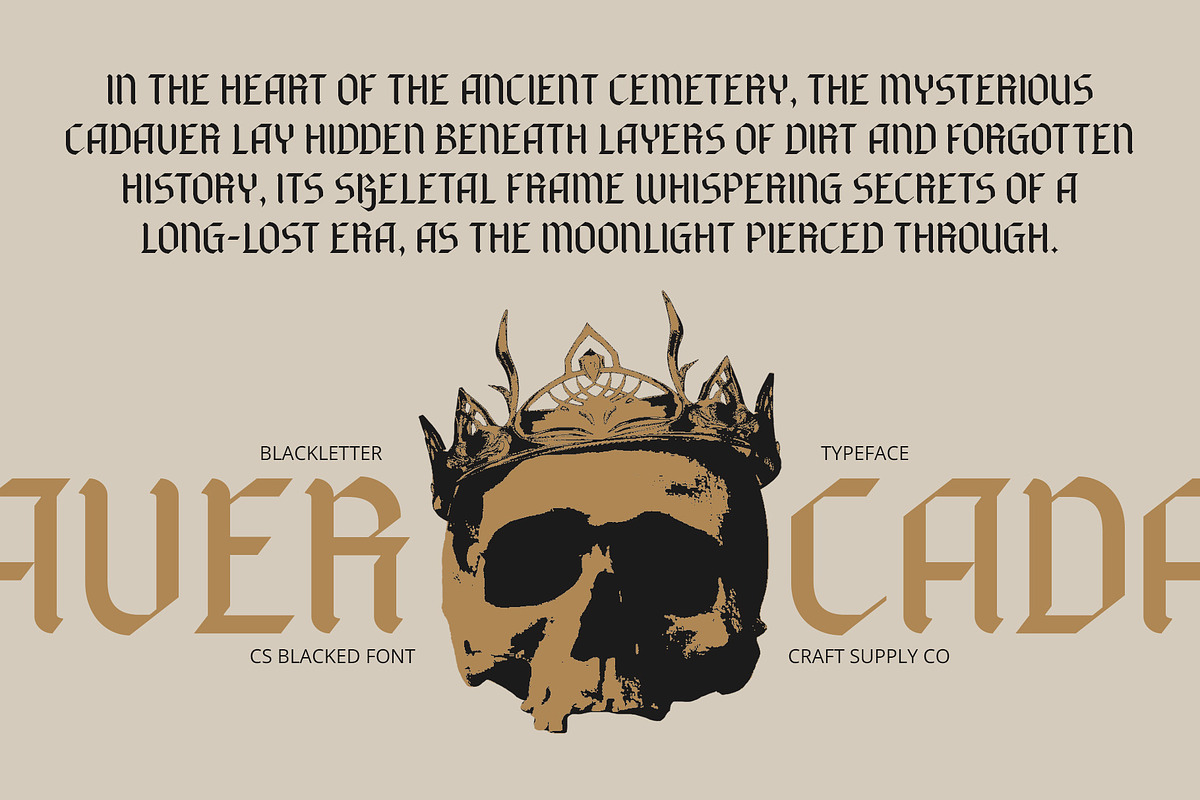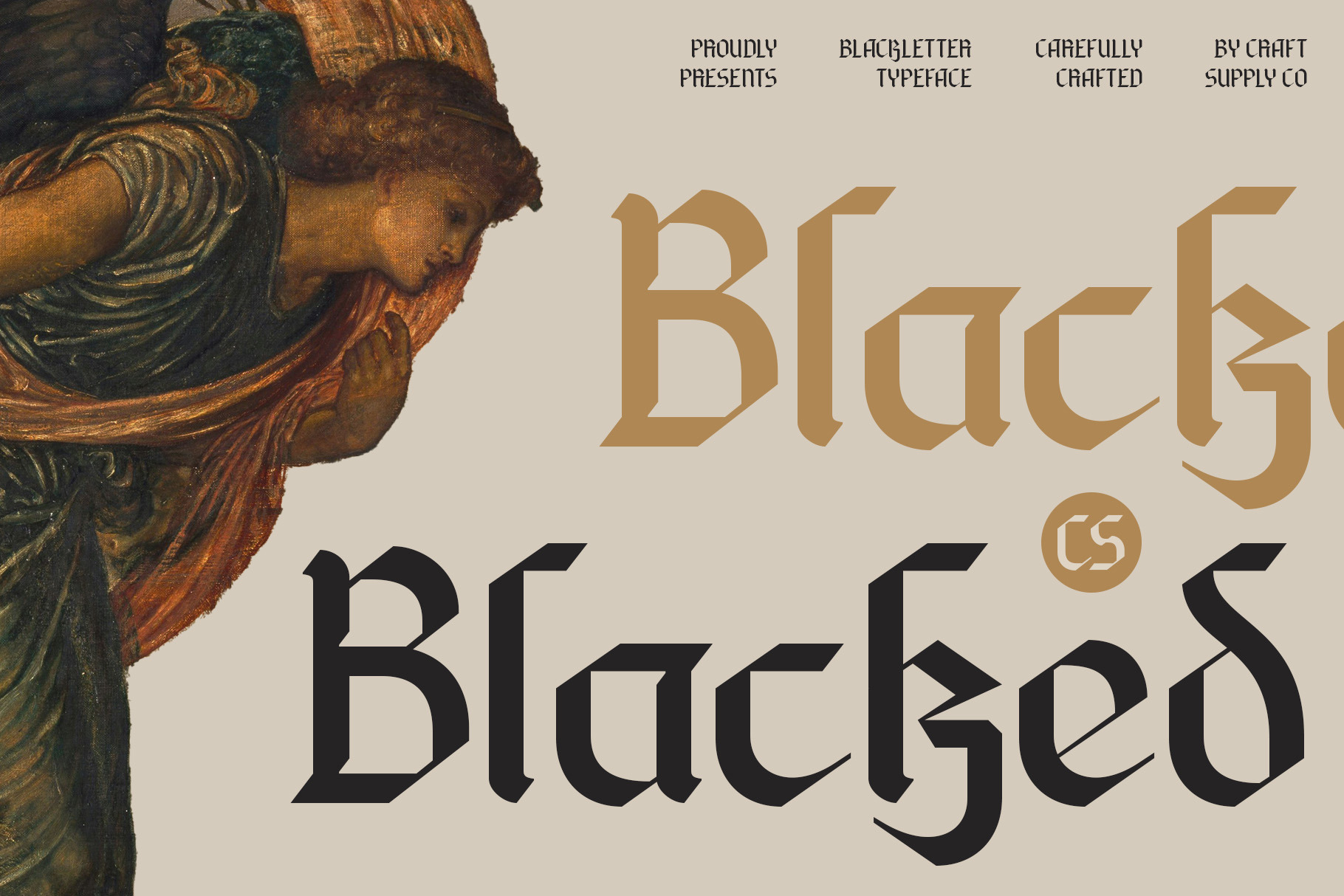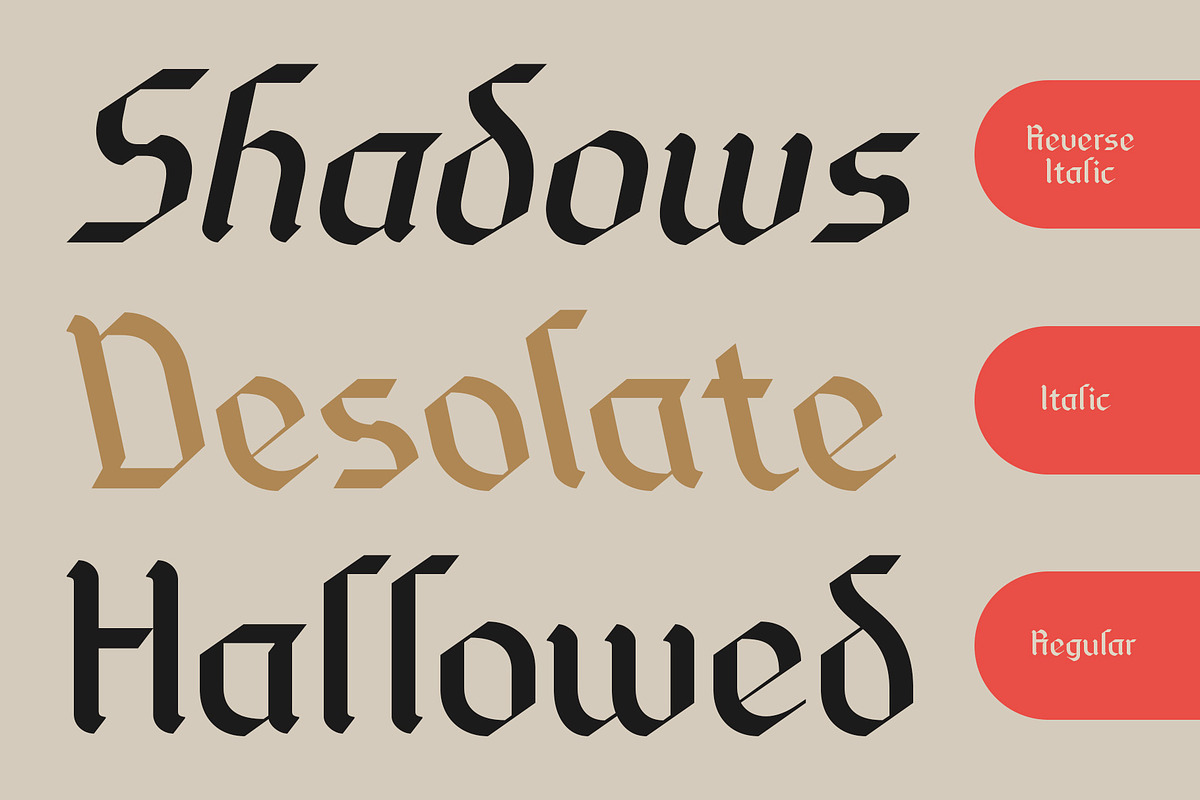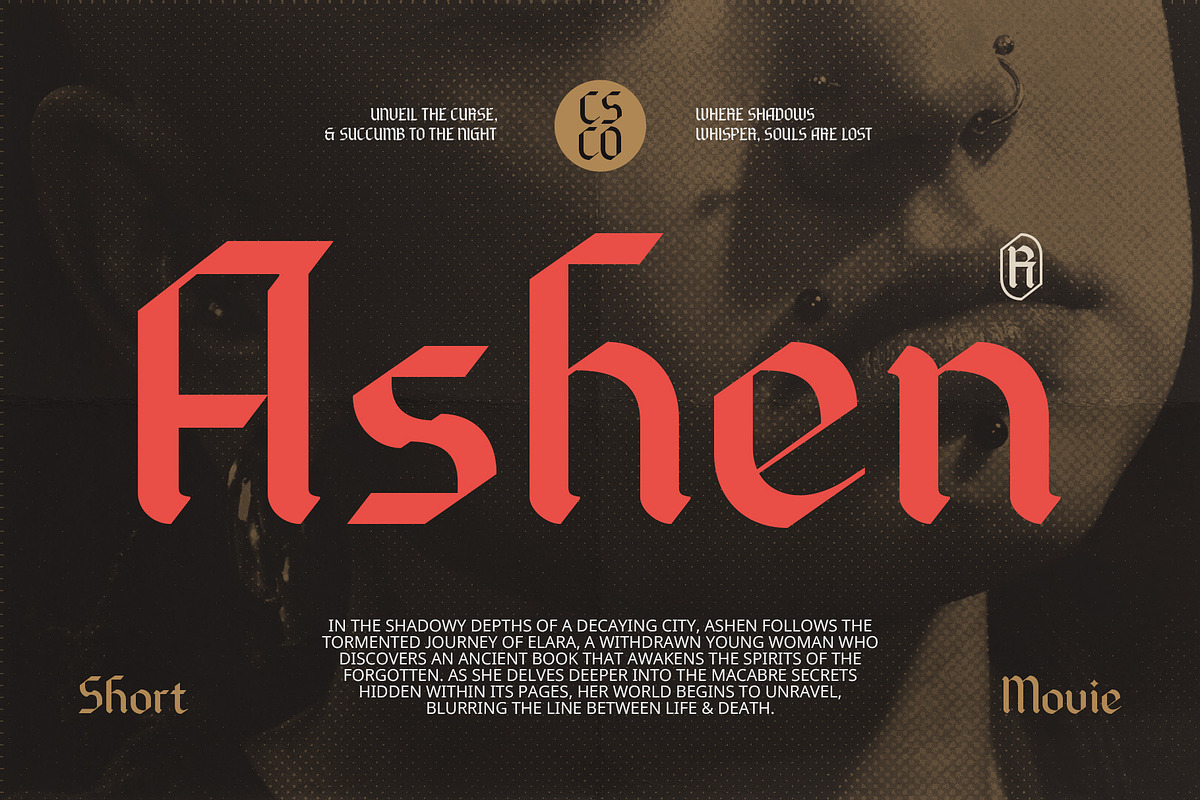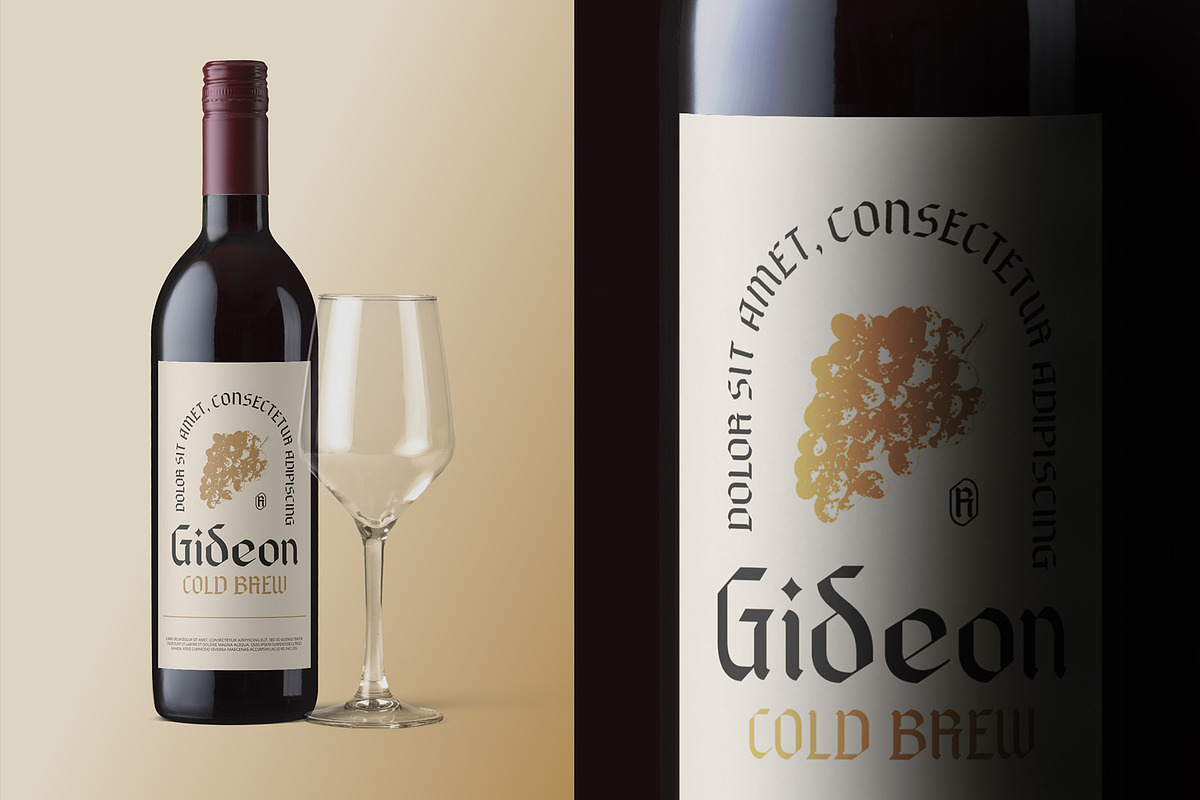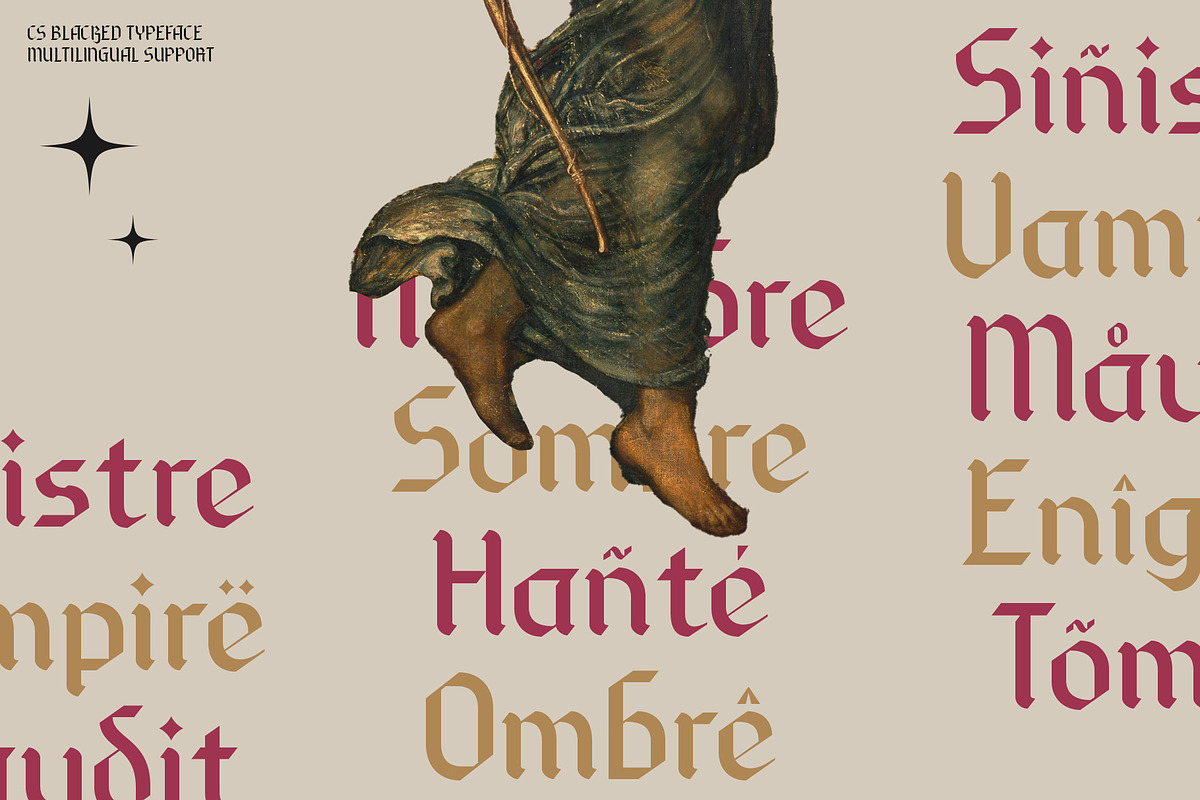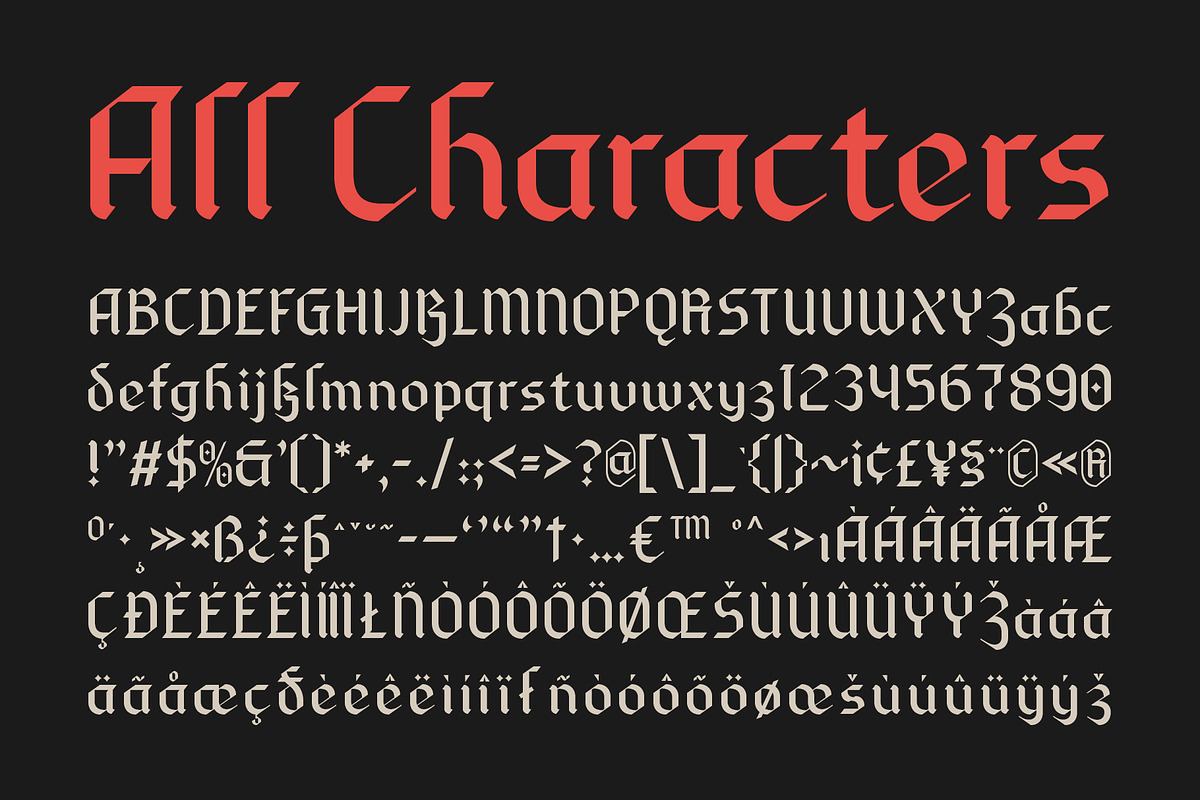
CS Blacked – Blackletter Font
CS Blacked – Blackletter Font: Classic Elegance with Historical Charm
Display Serif with Blackletter Design CS Blacked – Blackletter Font is a striking display serif typeface that embraces the timeless elegance of Blackletter design. Renowned for its intricate and sharp features, this font delivers a classic and historical impression, making it a standout choice for projects that demand a touch of formality and sophistication.
Strong and Authoritative Appearance With its bold, authoritative design, CS Blacked – Blackletter Font commands attention and exudes a sense of grandeur. The font’s dramatic, ornate shapes contribute to its strong visual presence, making it ideal for applications such as high-end branding, formal invitations, and designs that require a historical or luxurious touch.
Visual Uniqueness and Captivating Aesthetic CS Blacked – Blackletter Font offers more than just historical charm—it brings a unique and captivating aesthetic to various projects. Its distinctive letterforms and elaborate detailing add visual intrigue and character, enhancing the overall design with a rich, dramatic flair.
Versatile for Historical and Luxurious Designs Perfect for crafting prestigious branding materials, elegant invitations, or any design requiring a historical or luxurious feel, this blackletter font provides a distinctive and refined touch. Its classic Blackletter style ensures your projects stand out with a captivating and character-filled appearance that resonates with authenticity and sophistication.
- CS Blacked Regular
- CS Blacked Italic
- CS Blacked Reverse Italic